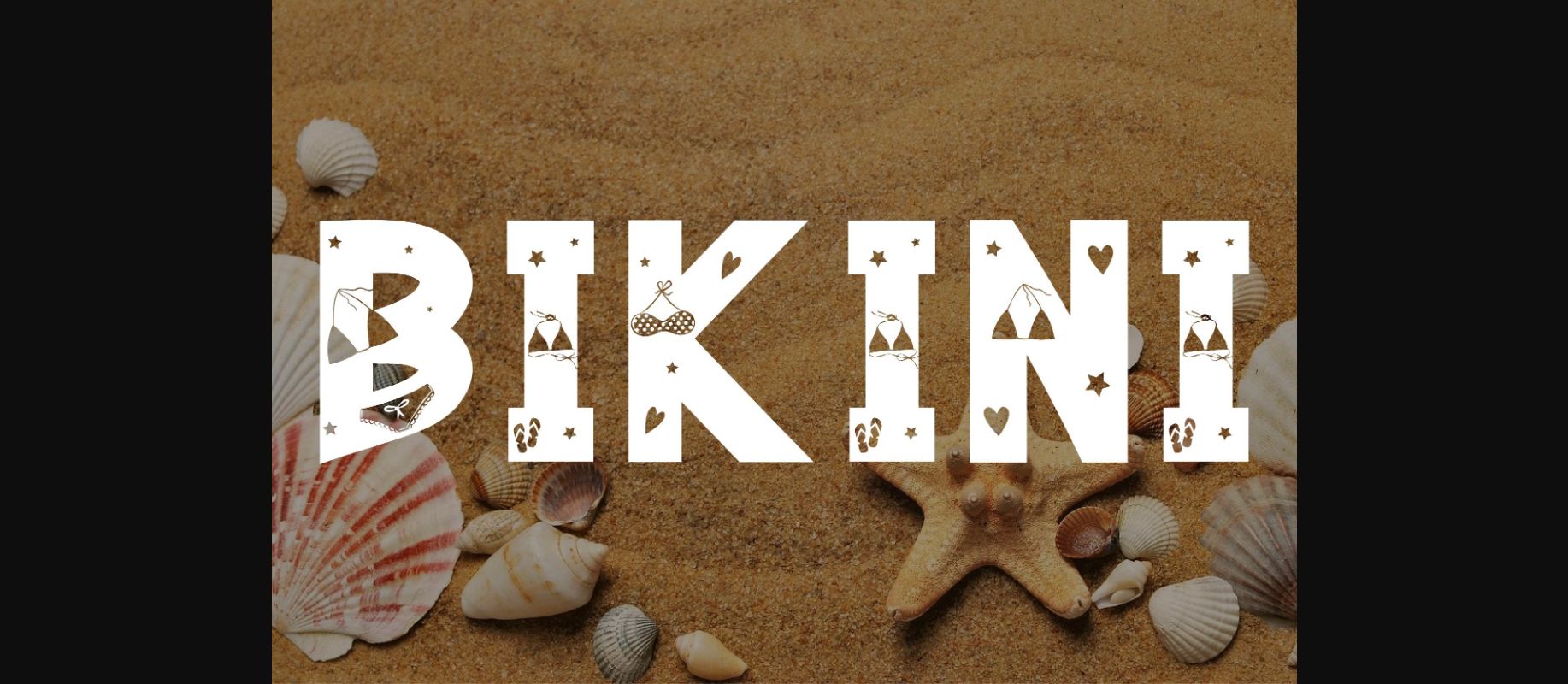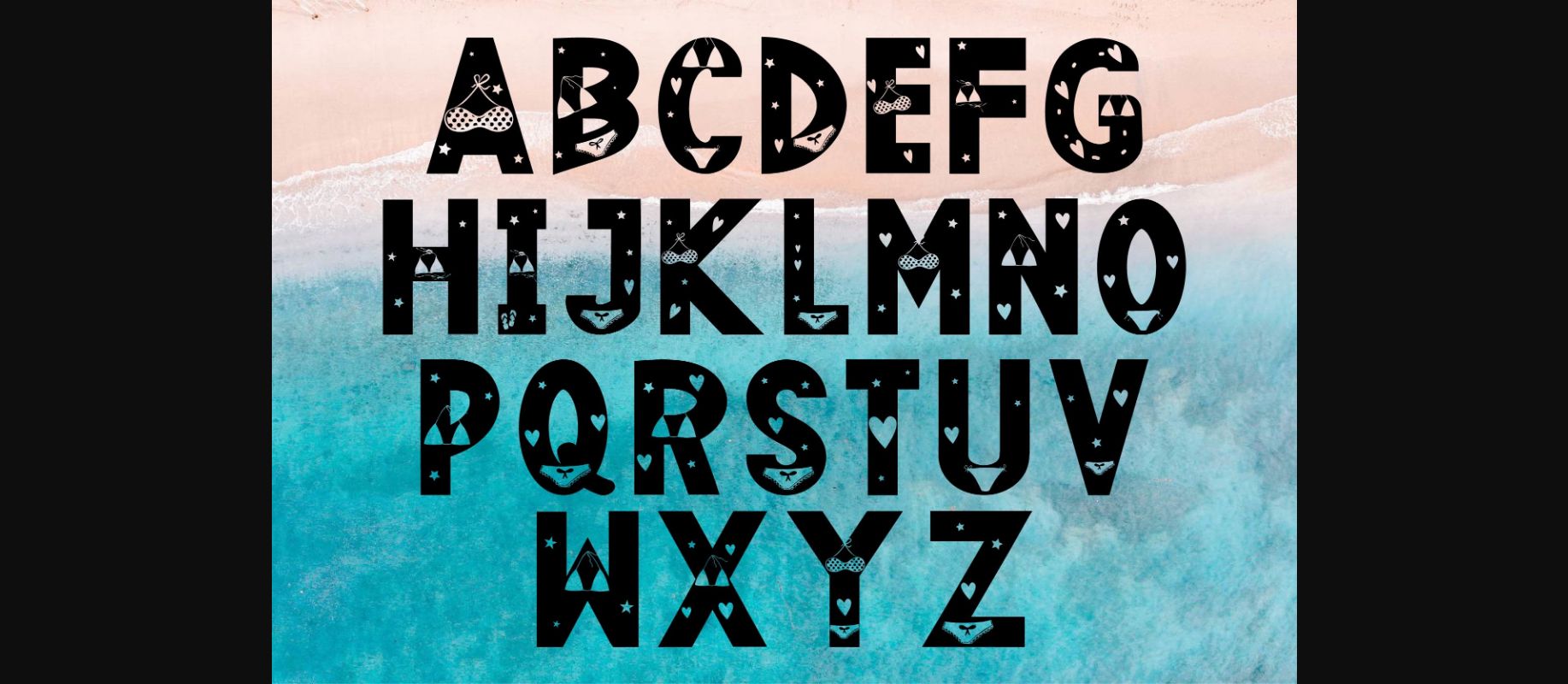
About Bikini Font
Bikini is a uniquely designed decorative font. The alphabet has the beauty and cuteness of a bikini. Every letter has a unique and beautiful touch, which will make your design come alive!